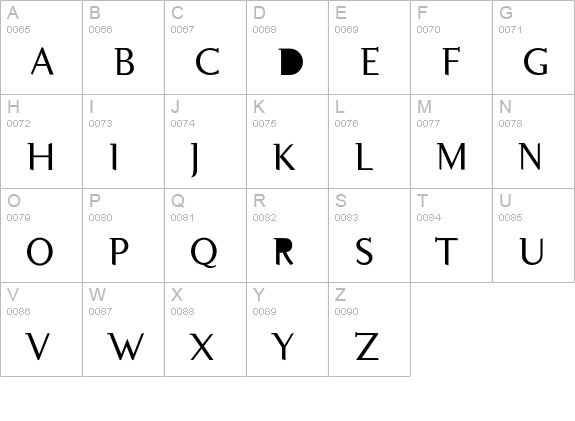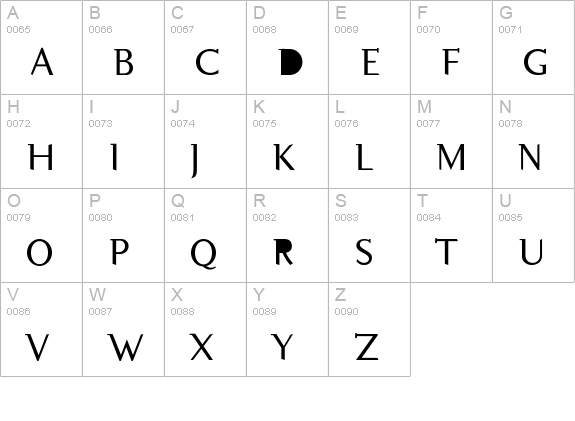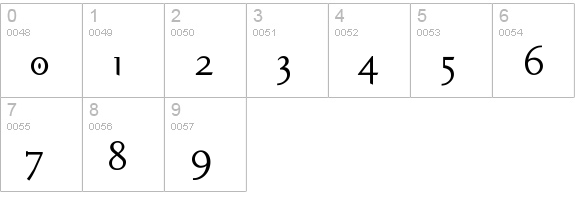
Pilgrim font is a stunning typeface that embodies the essence of adventure and exploration. With its elegant and slightly vintage design, this font is perfect for adding a touch of nostalgia to any project. Whether you're designing a travel blog, creating a logo for a hiking club, or crafting an invitation to a wanderlust-inspired event, Pilgrim font will bring a sense of wanderlust and excitement. What makes Pilgrim font even more appealing is that it is free! Yes, you read that right. This incredible font is freely available to download at FontsMarket.com. So, you don't have to worry about breaking the bank to add this beautiful typeface to your collection. With its wide range of uppercase and lowercase characters, numerals, and punctuation marks, Pilgrim font offers versatility and flexibility for all your design needs. Its clean and crisp lines ensure legibility while still maintaining its unique charm. Whether you're a professional designer or a creative enthusiast, Pilgrim font is a must-have in your font library. It effortlessly captures the spirit of exploration and adds a touch of whimsy to any project. So, don't miss out on this incredible opportunity to enhance your designs with Pilgrim font, available for free download at FontsMarket.com.